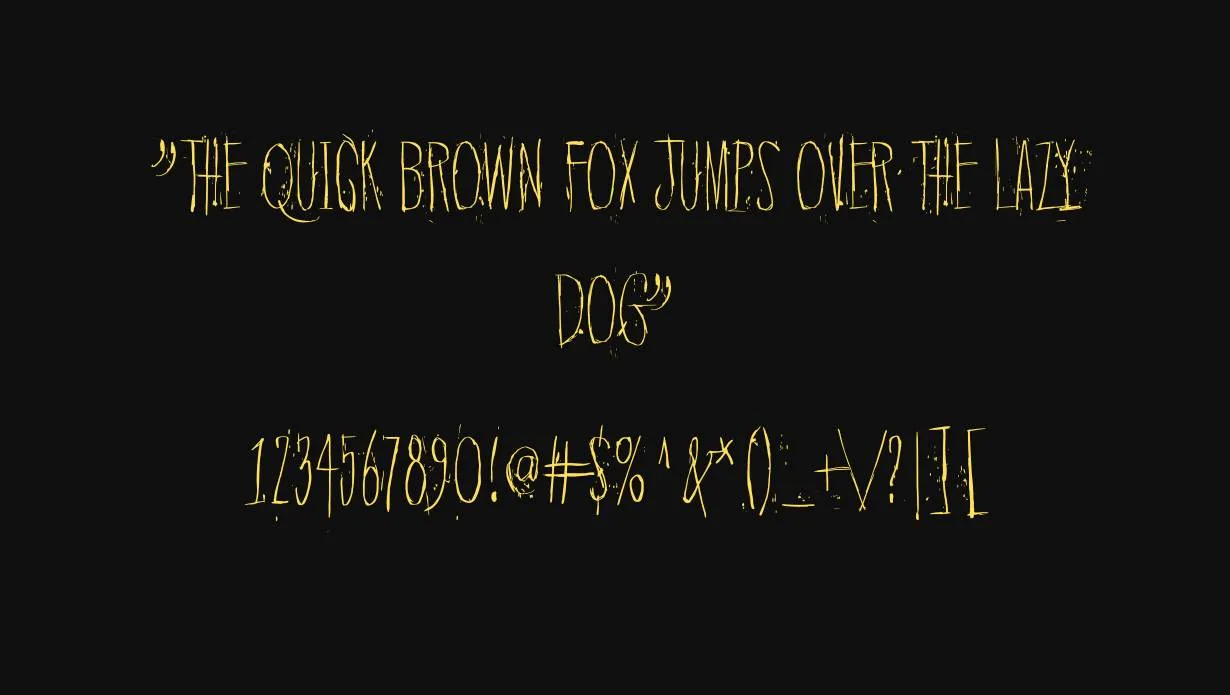
The Quiet Horror Story font exudes a spooky and mysterious vibe. Often used in horror book covers, themed events, or designs aiming for an eerie and chilling appearance, its haunting and enigmatic style adds a touch of suspense and drama to texts. .
| Name | Quiet Horror Story Font |
| Designer | junkohanhero |
Perfect for designs seeking to send shivers down the spine, this font contributes an air of mystery and suspense. The black ground font offers a comparable style and characters, making it a suitable substitute for the font mentioned.